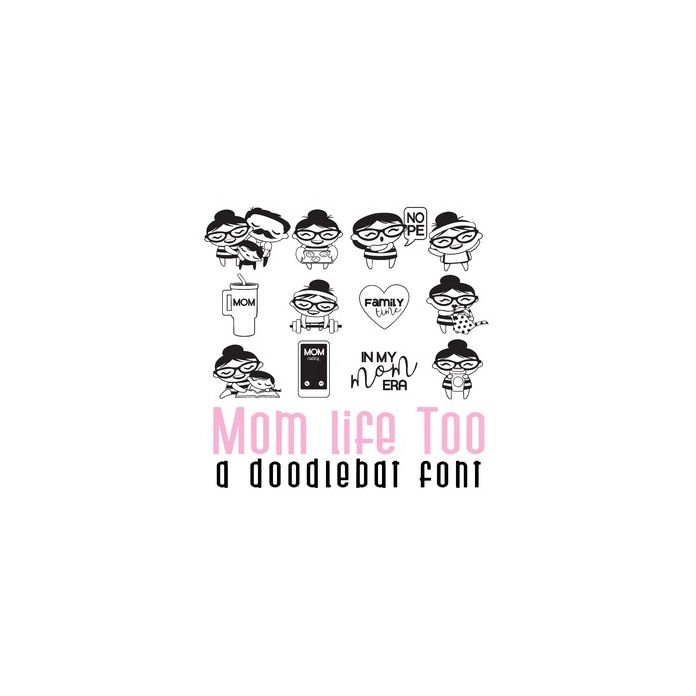
This adorable doodlebat font features 26 more simple style moms living their best mom life. Perfect for cards, crafts, gifts, planner stickers, scrapbook pages, decor, classrooms, Mother's Day and more!